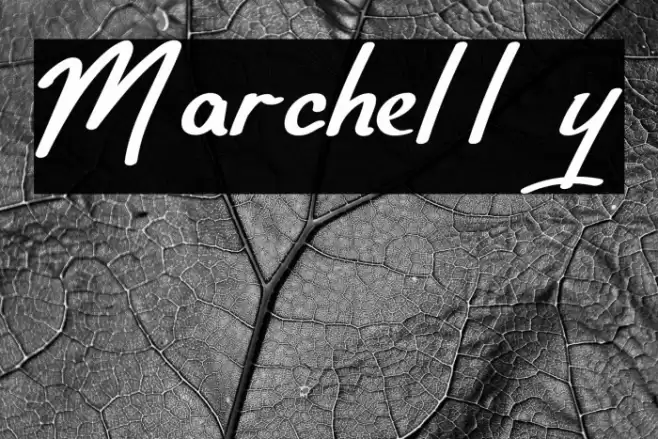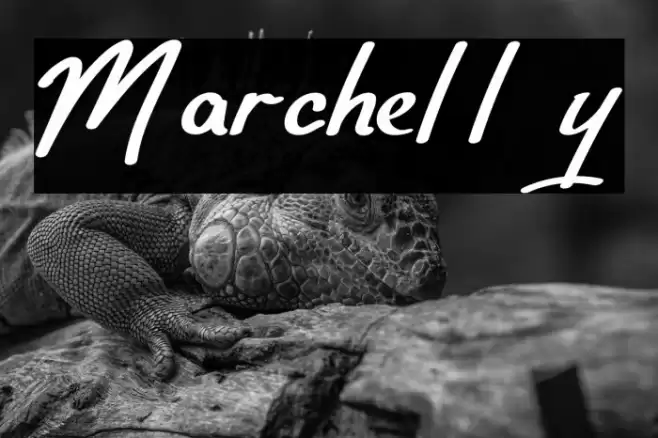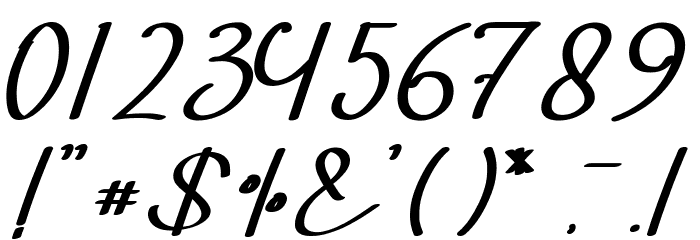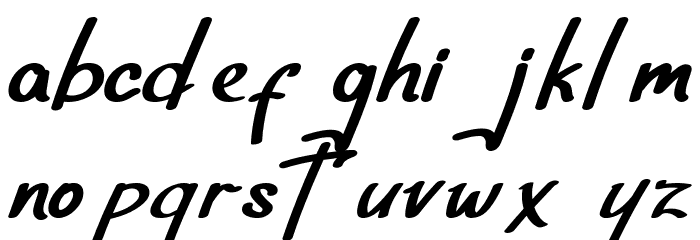
Marchelly Font
Marchelly Description
This font features a flowing, cursive style that exudes elegance and sophistication. The uppercase letters are slightly slanted, with smooth curves and a consistent stroke width that gives them a harmonious appearance. The lowercase letters maintain a similar style, with some unique flourishes that add character and charm. The numerals are well-integrated into the overall design, maintaining the same fluidity and grace. Special characters are thoughtfully crafted, ensuring they blend seamlessly with the rest of the font. This font is perfect for projects that require a touch of elegance and personal flair.
A flowing, cursive font with elegant and sophisticated styling from Regular fonts.
- Proposed Projects: Ideal for wedding invitations, elegant branding, personal stationery, and artistic projects.
- Overall Style: Elegant, Sophisticated
- Use Case: Logos, Invitations, Artistic projects